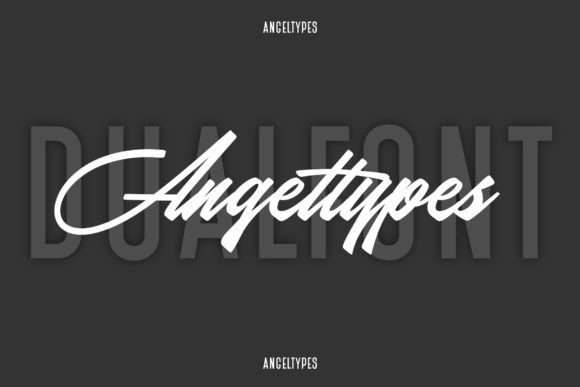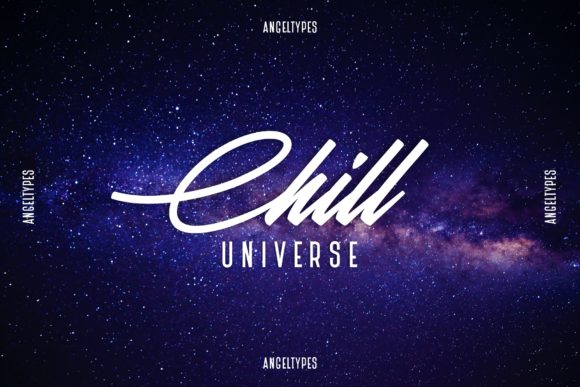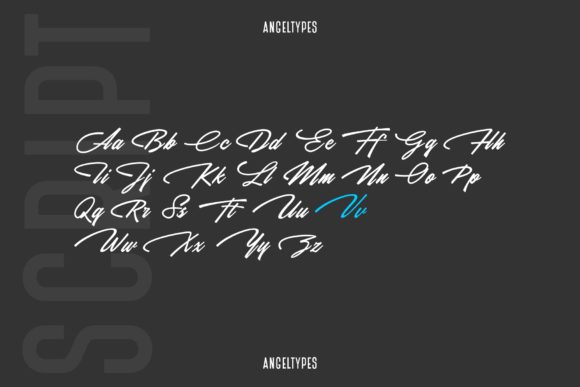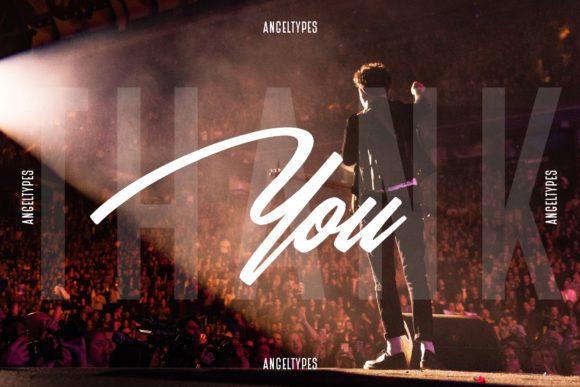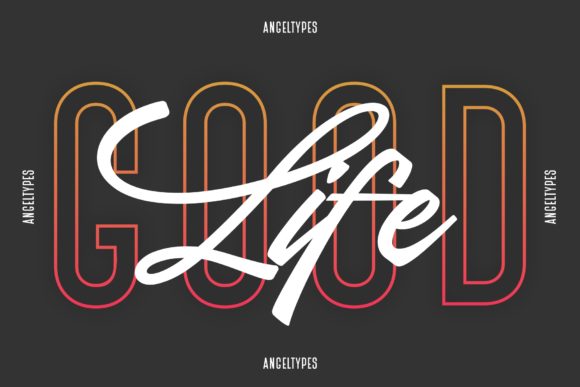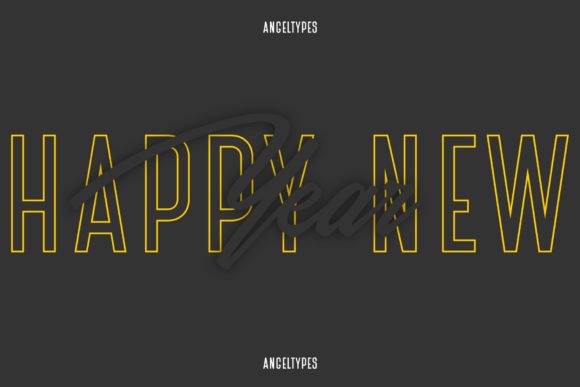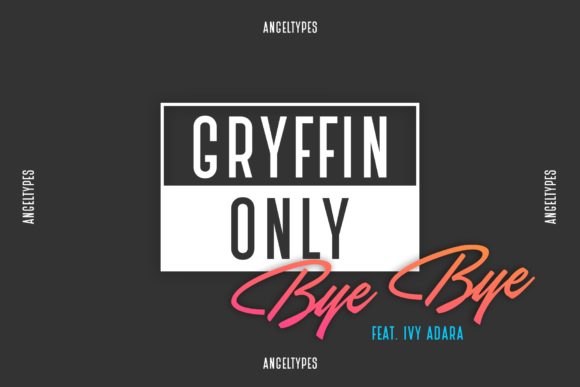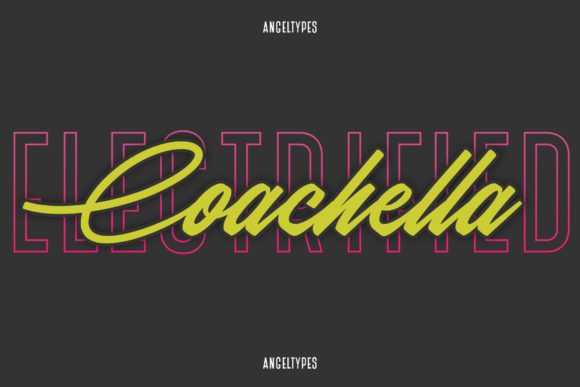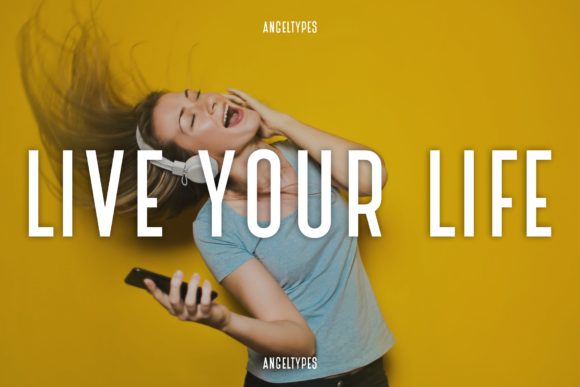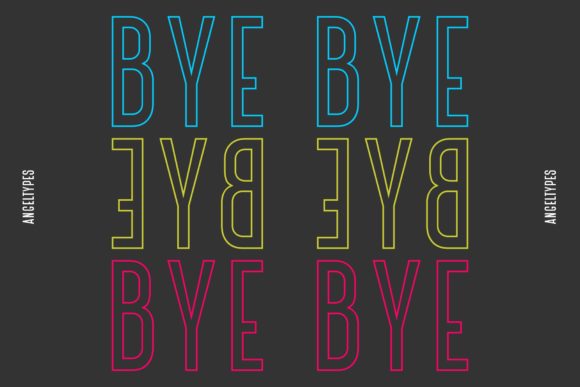
HomeScript FontsAngeltypes Font Script Fonts Angeltypes Font FacebookXPinterestWhatsApp Angeltypes Font Poster 2 Angeltypes Font Poster 3 Angeltypes Font Poster 4 Angeltypes Font Poster 5 Angeltypes Font Poster 6 Angeltypes Font Poster 7 Angeltypes Font Poster 8 Angeltypes Font Poster 9 Angeltypes Font Poster 10 Angeltypes Font Poster 11 Angeltypes Font Poster 12 About Angeltypes Font Angeltypes is a modern and playful font duo, featuring two versatile and charming fonts! DOWNLOAD NOW People also explored Line Arrow Font Transito Font Antheme Font Aneisha Script Font Bethalia Script Font Dodopop Duo Font Madona Smith Font Sweet Lullaby Font Heredittary Font 287 0 TagsAngeltypes Font Previous articleGens Better Than You FontNext articleShadow Brush Font LEAVE A REPLY Cancel reply Comment: Please enter your comment! Name:* Please enter your name here Email:* You have entered an incorrect email address! Please enter your email address here Website: Save my name, email, and website in this browser for the next time I comment. Personal Use Free Winter Soldier Personal Use Free Read more about this font Adelaide Personal Use Free Read more about this font Sathscha Personal Use Free Read more about this font Blue Highway Personal Use Free Read more about this font BLOG Where to Buy American Fonts Online in 2024 Where to Buy American Fonts Online: The Ultimate Guide for 2024 Looking for the perfect American font to elevate your design projects? You're in the... 5 Fonts That Will Dominate Design Trends in 2026 Fonts That Capture the Spirit of New York City The 10 Best Handwriting Fonts to Add Personality to Your Designs